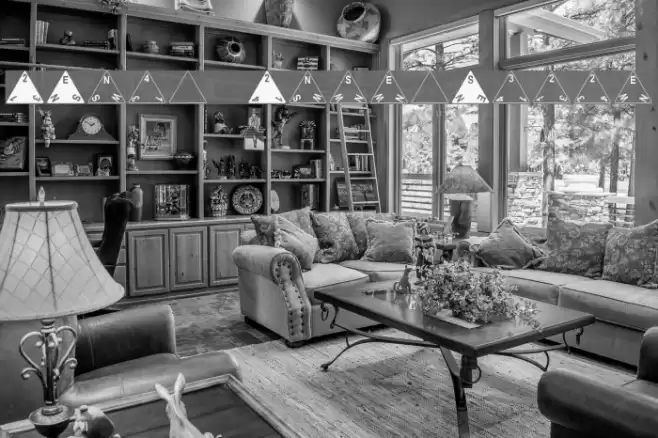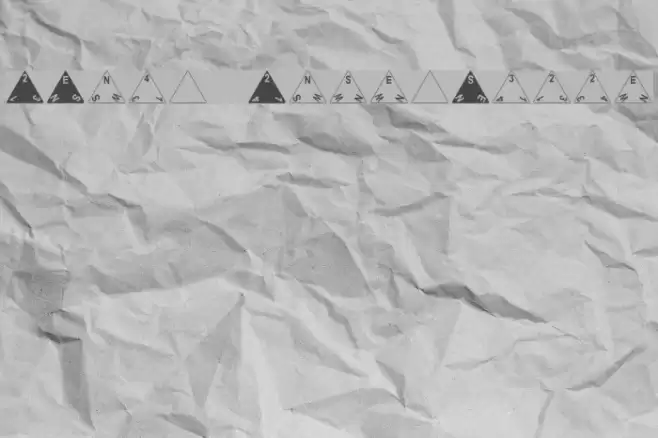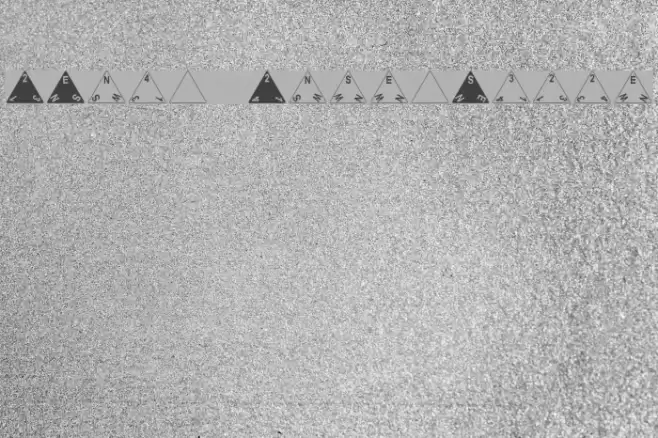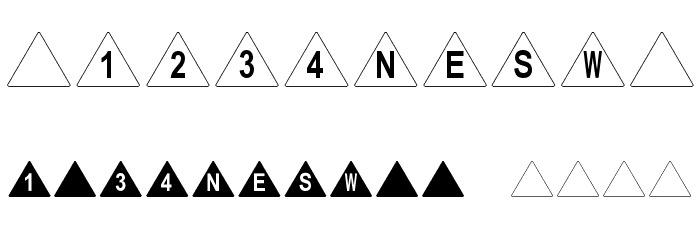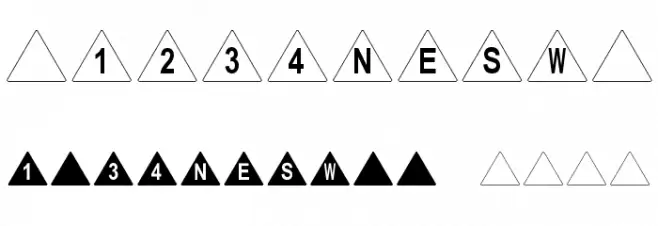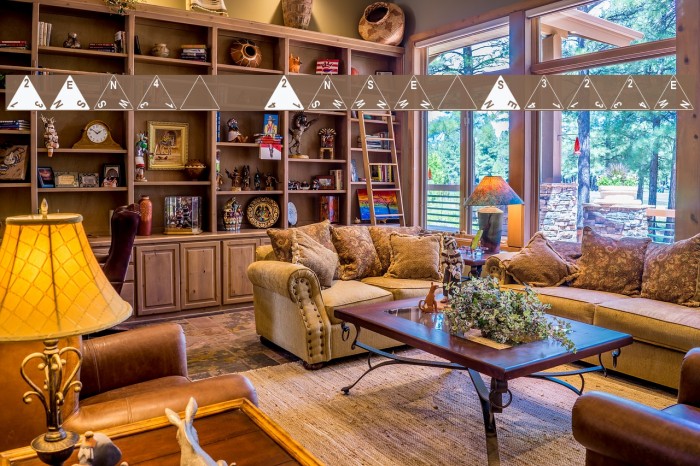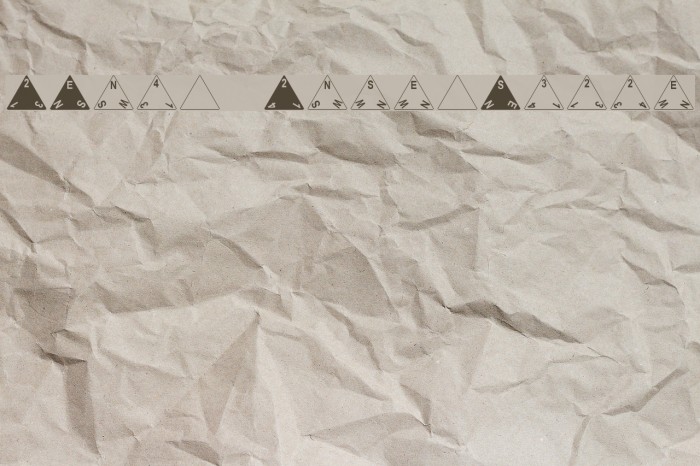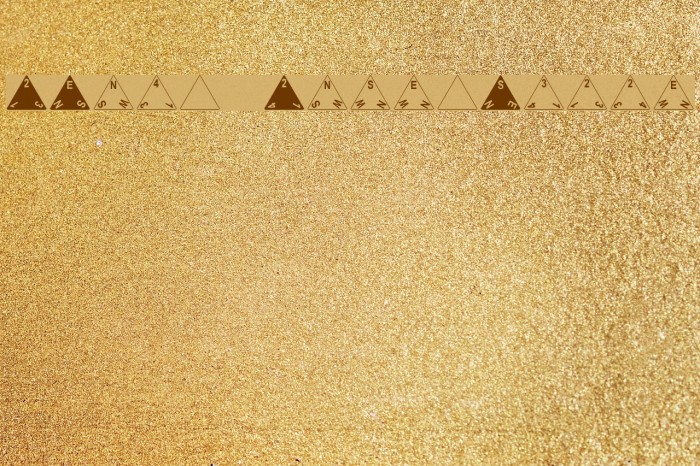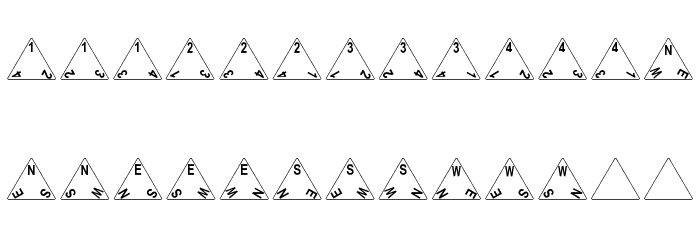
DPoly Four-Sider Font
DPoly Four-Sider Description
This is not a traditional font but rather a collection of triangular symbols, each containing a number or a letter. The triangles are filled with either black or white, and the characters are displayed in contrasting colors. The characters include numbers 1 to 4 and compass directions N, E, S, W. The style is bold and geometric, with a focus on clarity and simplicity. The characters are centered within each triangle, making them easy to read. This design is more suited for specialized uses rather than typical text display.
- Proposed Projects: Ideal for board games, educational tools, or directional signage.
- Use Case: Signage, Educational tools, Game design